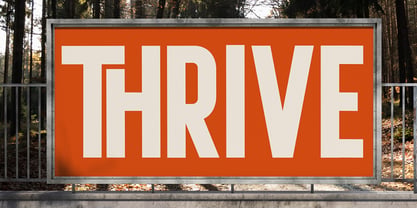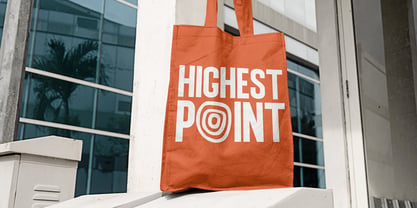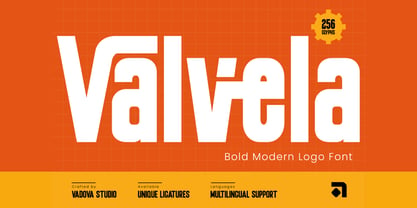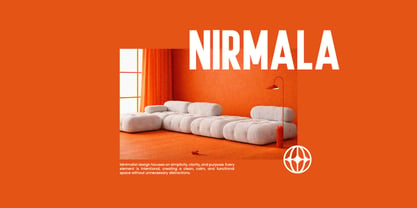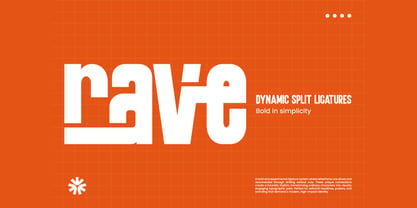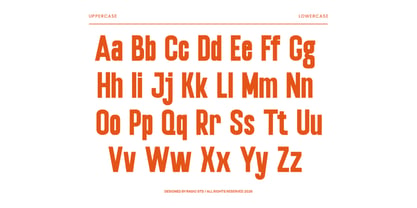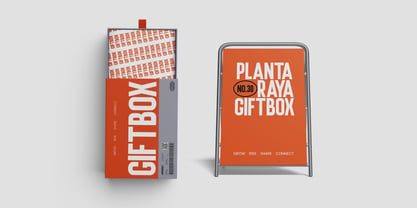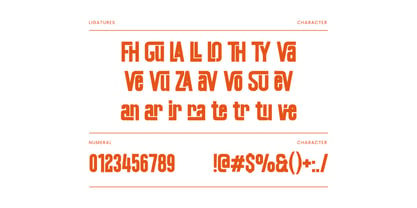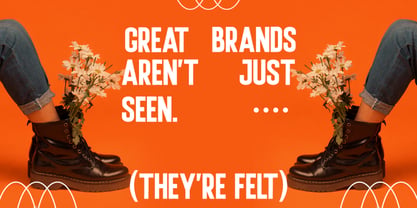
Valvela
Valvela is a bold modern logo font featuring strong geometric letterforms with clean edges and high visual impact. The typeface includes uppercase and lowercase characters, numerals, punctuation, and multilingual support, along with unique ligatures for enhanced branding flexibility. This font is highly relevant for branding projects that require strong visual presence and clarity. It works effectively for logos, business identities, marketing campaigns, posters, and social media graphics where bold headlines are essential.